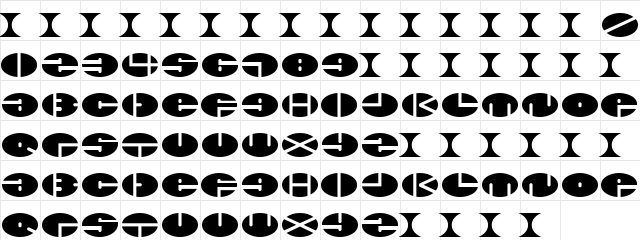
xminus Regular
Design Context for xminus Typeface
xminus is a composed and adaptable typeface that performs quietly and consistently across a wide range of design contexts.